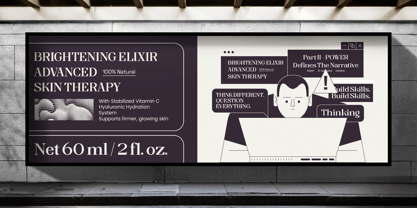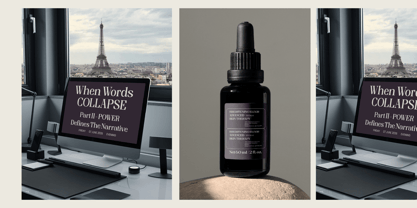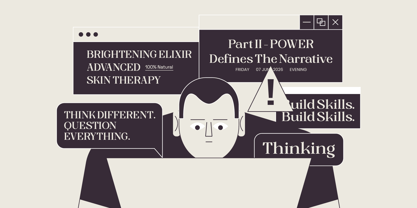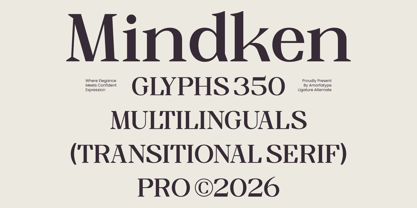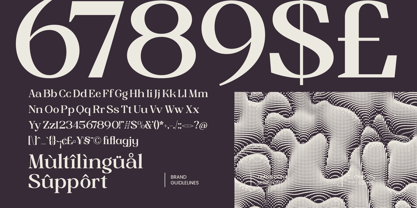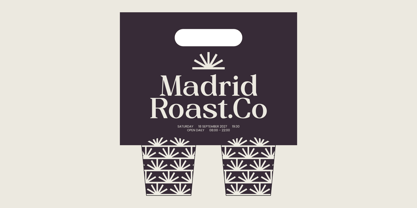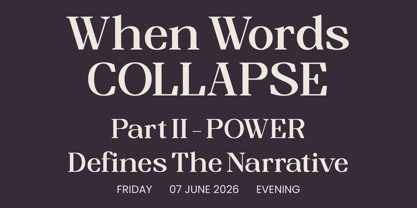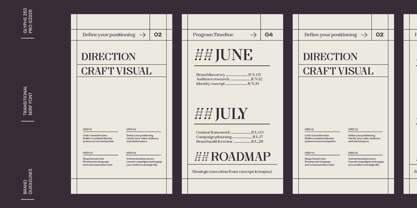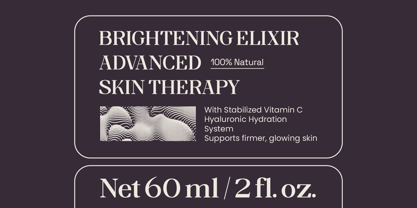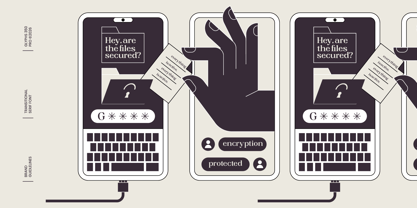
Mindken
von Amorfa Type
Die Schriftfamilie Mindken wurde von Shiddiq Roihan entworfen und von Amorfa Type veröffentlicht. Mindken enthält 2 Stile und Familienpaketoptionen. Mehr über diese Familie
Mindken is a refined transitional serif typeface crafted for designers who demand presence and precision. With pronounced contrast, crisp serif details, and carefully balanced proportions, it delivers a confident yet elegant tone suitable for high-end visual work. This typeface bridges classical serif tradition and contemporary design sensibility, making it highly adaptable for branding systems, editorial headlines, luxury packaging, book covers, fashion layouts, and premium logo design. Mindken carries a polished character that feels established, credible, and visually commanding.